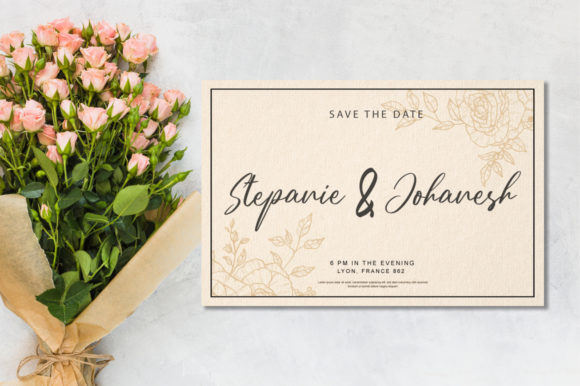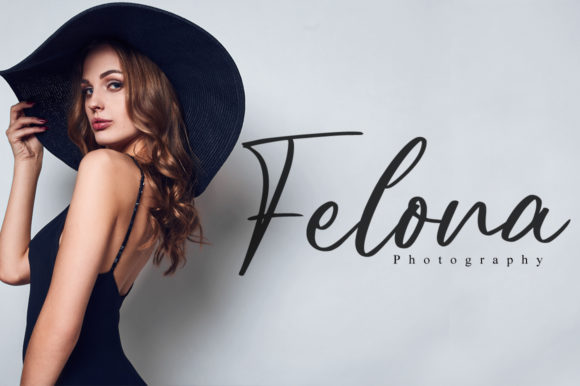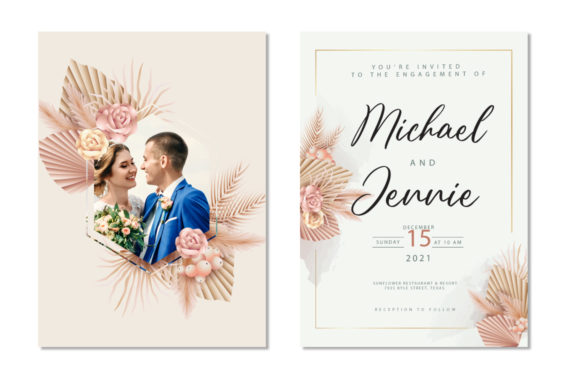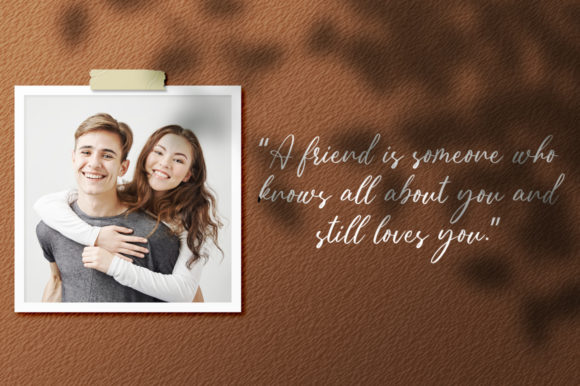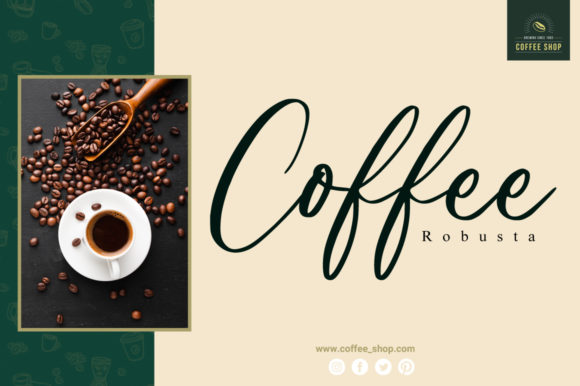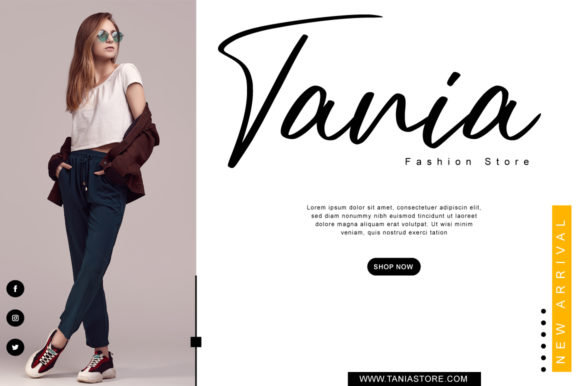
The Quest for the Perfect Font: Discovering Geraldine
I’ll never forget the time I was working on a wedding invitation project, and my client asked for a font that was “elegant, modern, and classy.” I scoured the internet, tried out dozens of fonts, but nothing seemed quite right. That was until I stumbled upon Geraldine, a beautiful script font that stole my heart. In this article, I’ll share my experience with Geraldine, its features, and how to make the most of it in your designs.
A First Impression: What I Love About Geraldine
Geraldine is a stunning script font that boasts a lovely flow, making it perfect for a variety of design projects. Here are some things I love about it:
- ✨ Elegant and modern look that’s perfect for logos, branding, and wedding designs
- ✅ Classy and sophisticated feel that’s sure to impress
- 💫 Highly versatile and can be used for invitations, stationery, social media posts, and more
- 🎨 Beautifully crafted with attention to detail, making it a joy to work with
The Not-So-Perfect: Small Quirks and Limitations
While Geraldine is an amazing font, it’s not without its quirks. Here are a few things to keep in mind:
- 🤔 Some users may find the font a bit too ornate for certain projects, such as body text or captions
- ⚠️ As with any script font, it may not be suitable for very small font sizes or low-resolution images
The Story Behind Geraldine
Geraldine was designed with the intention of creating a font that was both elegant and modern. The designer wanted to create a font that would be perfect for wedding designs, logos, and branding, while also being versatile enough for use in a variety of other projects. With its beautiful flow and attention to detail, Geraldine is sure to become a favorite among designers.
| Font Name | Geraldine Font |
| Author | FatmaStudio |
| What type of projects is Geraldine best suited for? | Geraldine is perfect for logos, branding, wedding designs, invitations, stationery, social media posts, and more! |
| Does Geraldine come with any OpenType features? | Yes, Geraldine features a range of OpenType features, including ligatures, stylistic alternates, and swashes. |